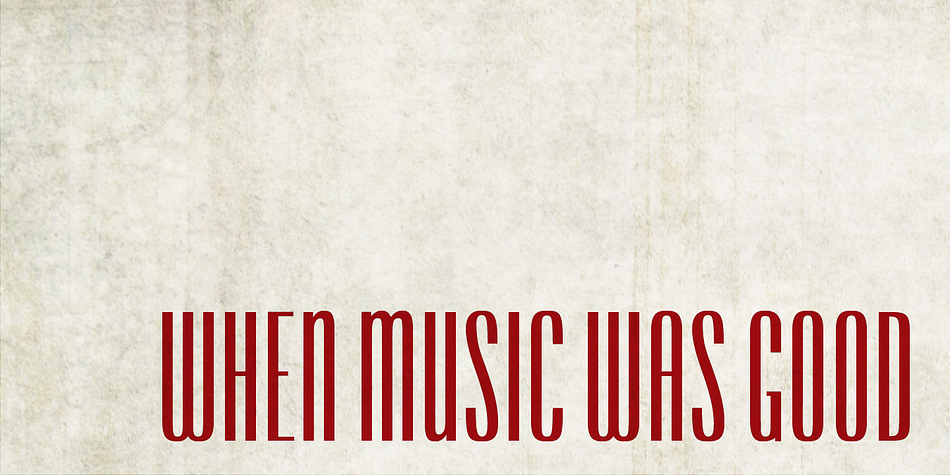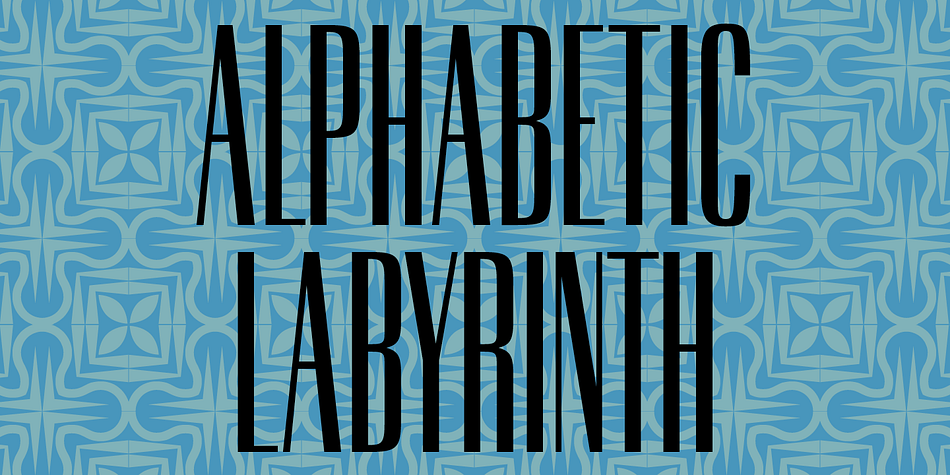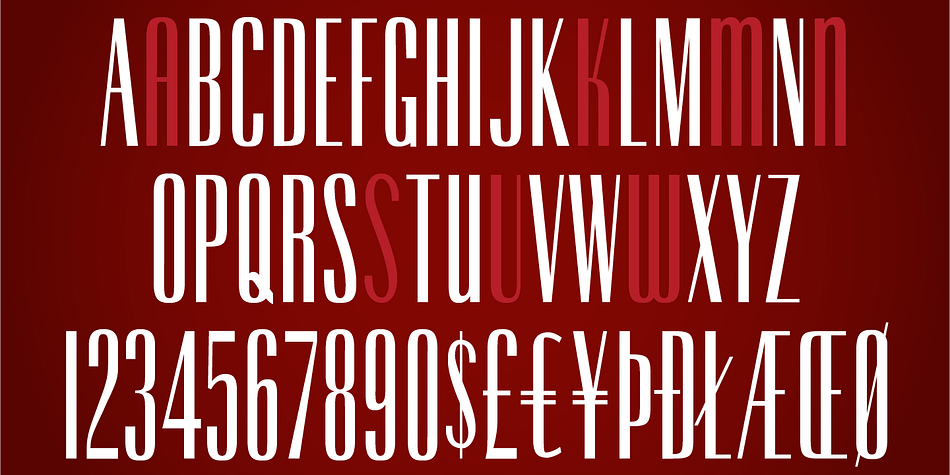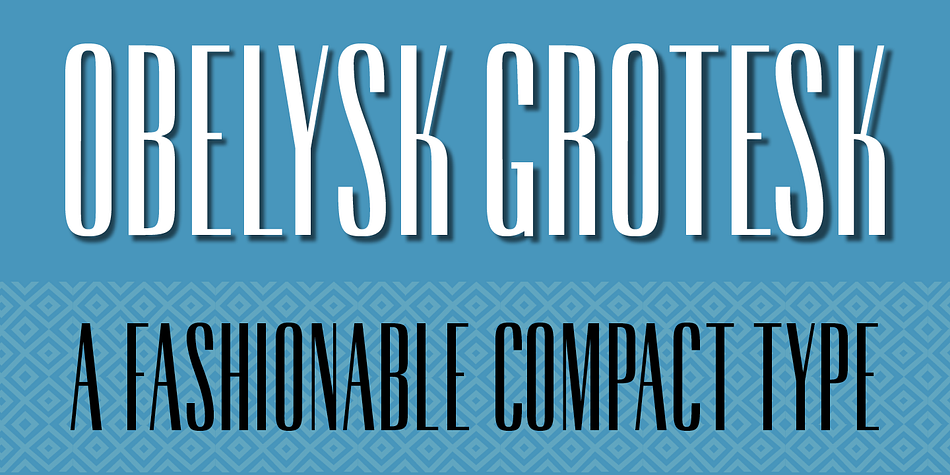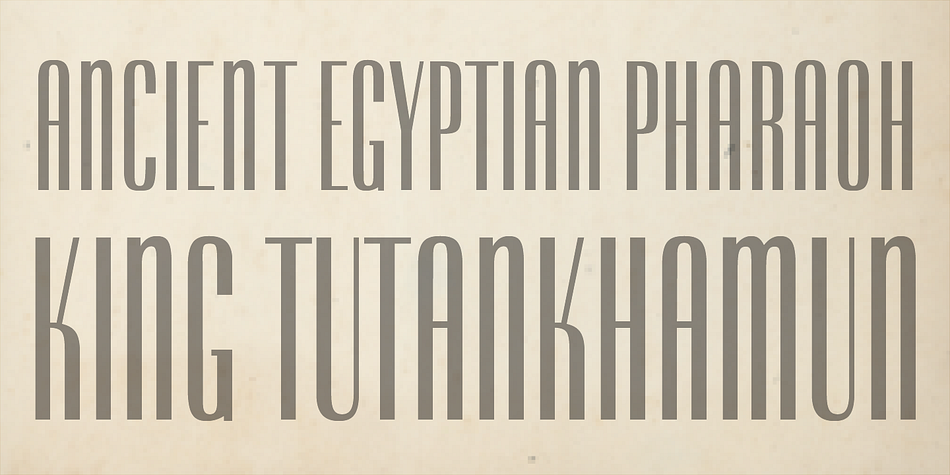
Designed by Sol Hess, LTC Obelysk Grotesk is a display sans and art deco font published by P22 Type Foundry.
Obelysk Grotesk was designed by the Lanston Drawing Office in the late 1980s. This face is a reconstruction of Spire (1937) drawn by Sol Hess. The skeleton of Spire Roman stands with the serifs removed. Like Spire, this font has no lower case, but does offer alternate cap styles in some of the lower case positions. Spire and Obelysk have both been used prominently in the fashion industry.